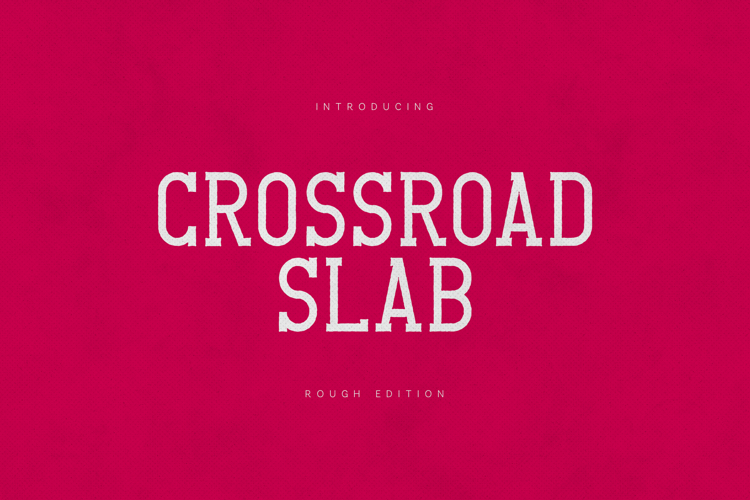
Crossroad Slab – Rough Edition is a bold vintage slab serif inspired by classic American woodtype, western posters and old-school print textures.
With its strong slab structure and subtle distressed texture, this typeface delivers powerful character while maintaining excellent readability. Perfect for statement branding, packaging, merchandise and bold editorial headlines.
This is not a clean modern serif — this is personality.
Crossroad Slab brings handcrafted authenticity into modern branding projects.